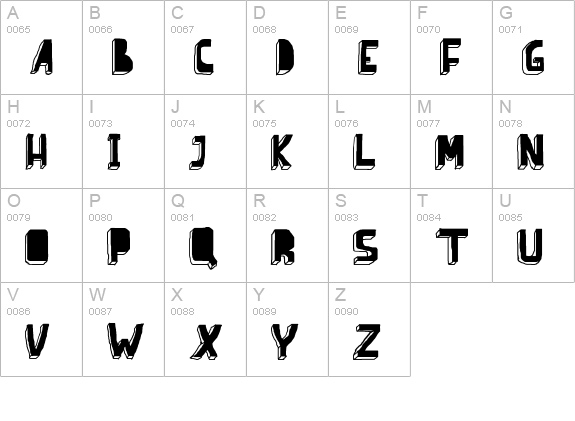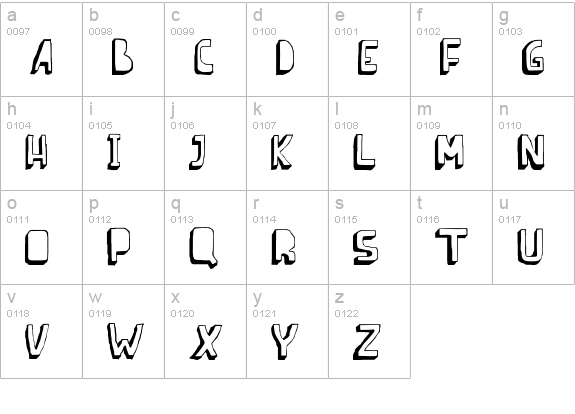
Barnes_erc_ Font Details
Introducing Barnes_erc_ font - a versatile and modern typeface that exudes elegance and sophistication. This font is perfect for a wide range of design projects, from branding to editorial design and everything in between. With its clean lines and unique personality, Barnes_erc_ font adds a touch of sophistication to any project. The best part? Barnes_erc_ font is available for free download at FontsMarket.com. Yes, you read that right - this high-quality font can be yours at no cost. Whether you're a designer looking to add a new font to your collection or a business owner in need of a fresh look for your branding materials, Barnes_erc_ font is the perfect choice. Don't miss out on this incredible opportunity to elevate your designs with the beautiful Barnes_erc_ font. Download it today and see the difference it can make in your projects.